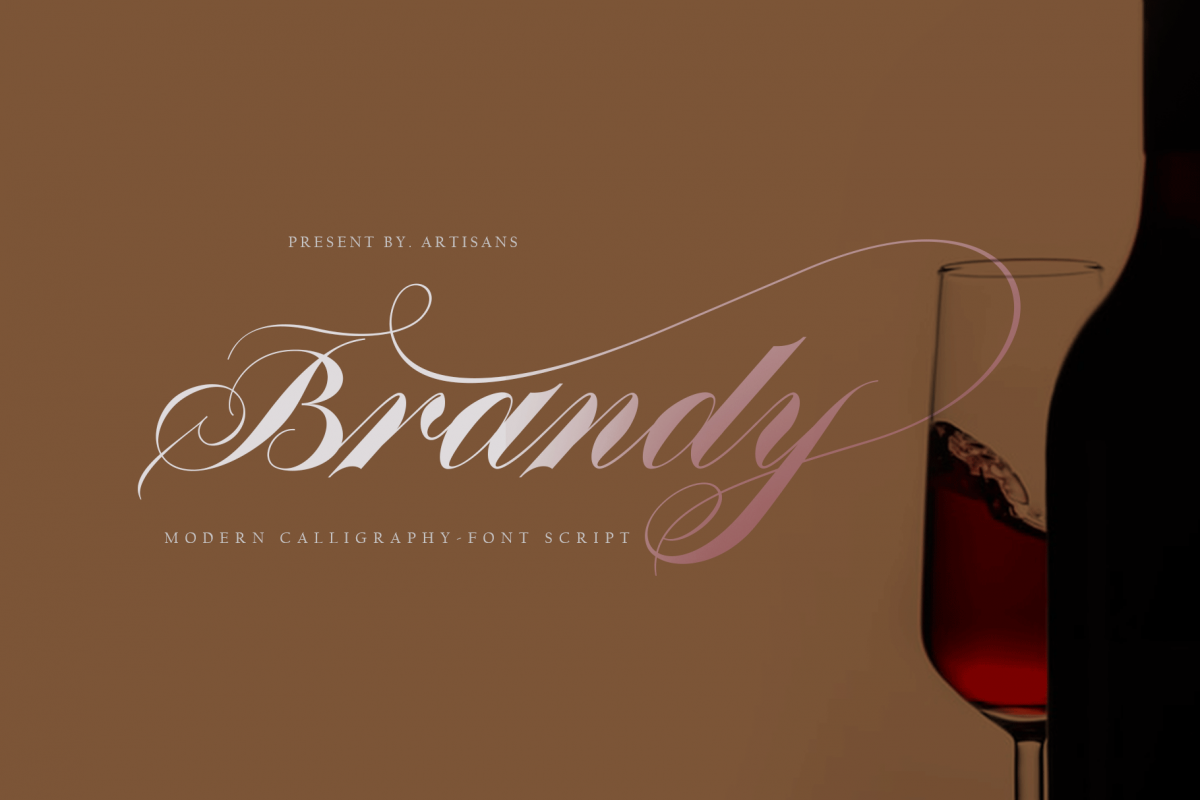
Brandy
Brandy is a font scrip, so, font script that is beautiful and unique, it is a model of modern calligraphy typefaces, in combination with a calligraphy writing style.The Features of this fonts is:
• Swash Alternates
• Standart ligatures
• Contextual Alternates
• Stylistic sets